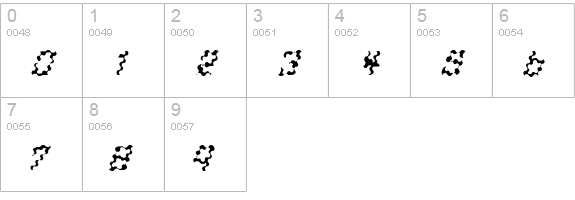
Introducing Glaukous - Paukous, a striking and elegant font that is sure to make a statement in your designs. With its unique blend of modern and classic elements, this font exudes sophistication and style. The sleek lines and intricate details of Glaukous - Paukous make it perfect for a wide range of projects, from branding to editorial design. What sets Glaukous - Paukous apart is not just its stunning appearance, but also the fact that it is completely free to download. Yes, you read that right - this beautiful font is available at no cost at FontsMarket.com. Whether you are a designer looking to add a touch of class to your work or just someone who appreciates quality typography, Glaukous - Paukous is sure to impress. Don't miss out on this fantastic opportunity to enhance your projects with this exquisite font. Download Glaukous - Paukous today and elevate your designs to the next level.